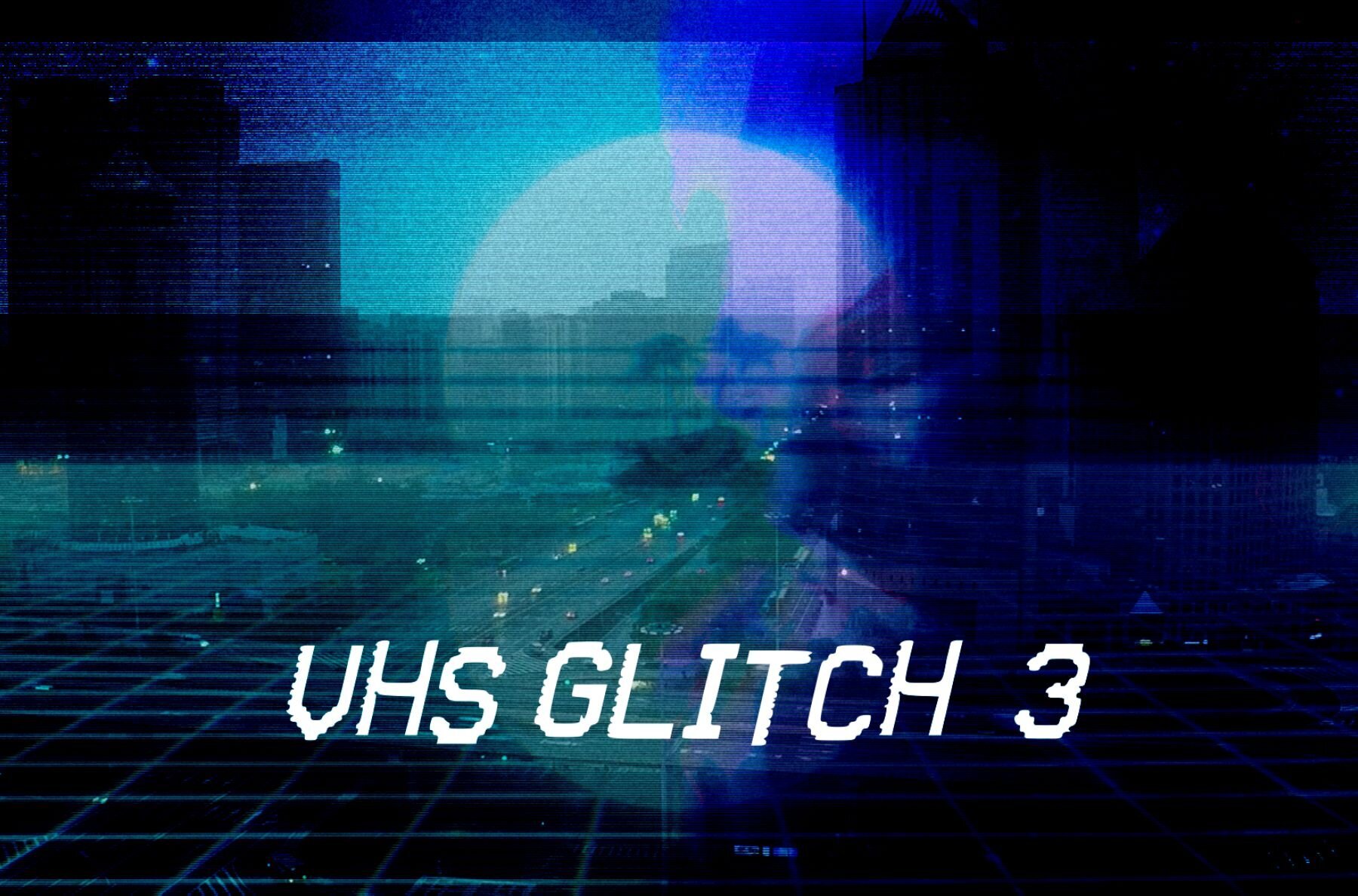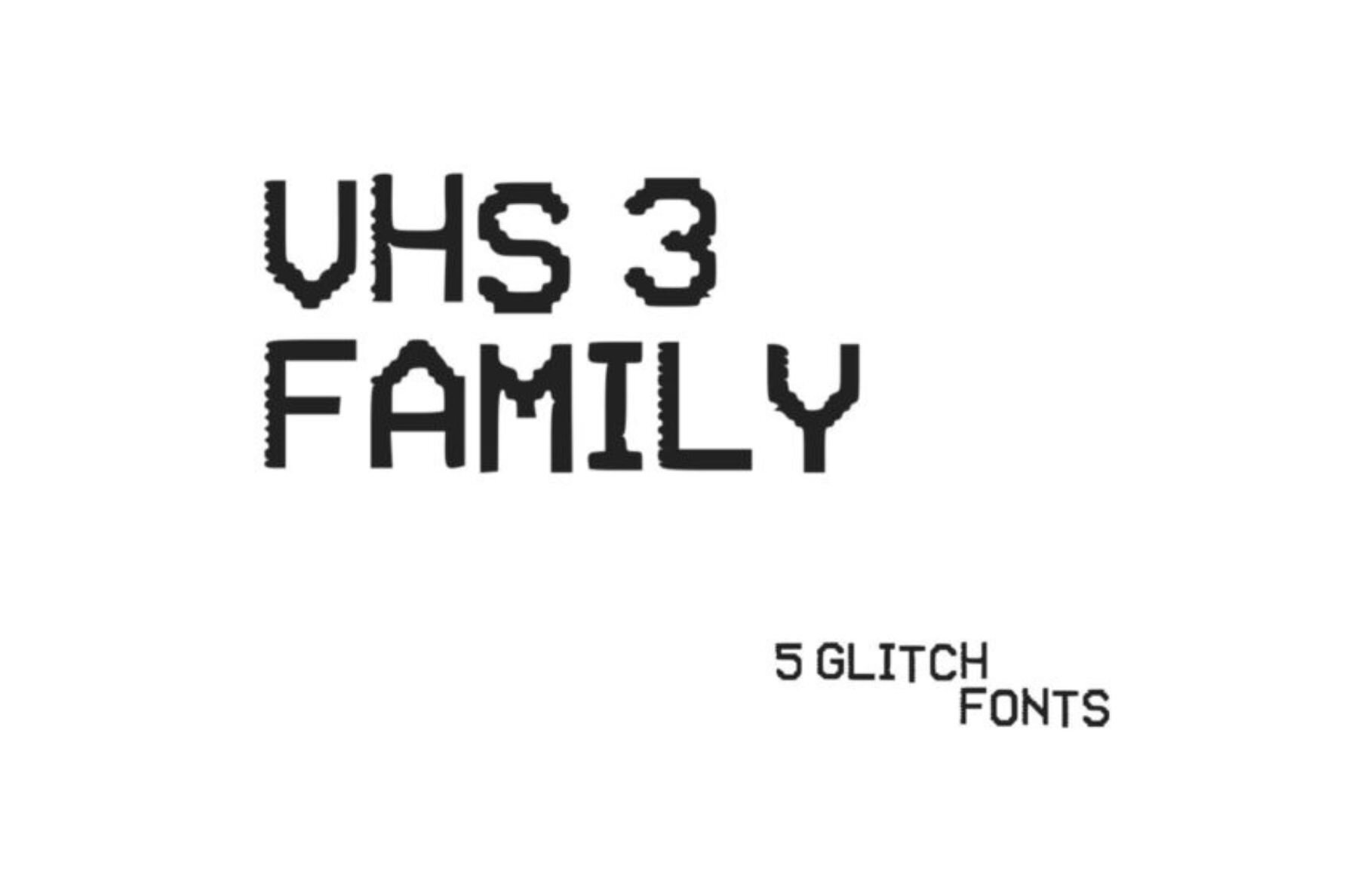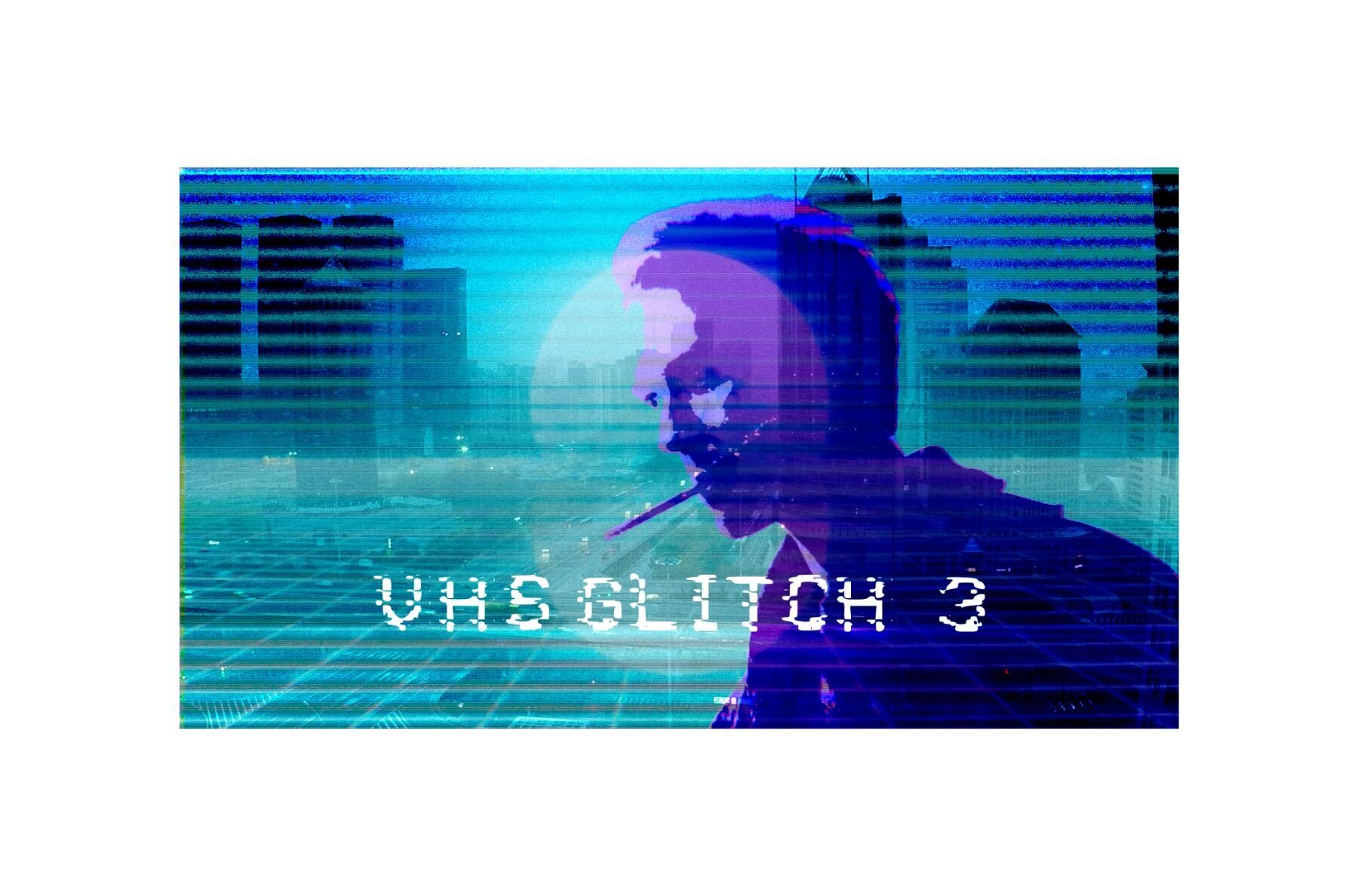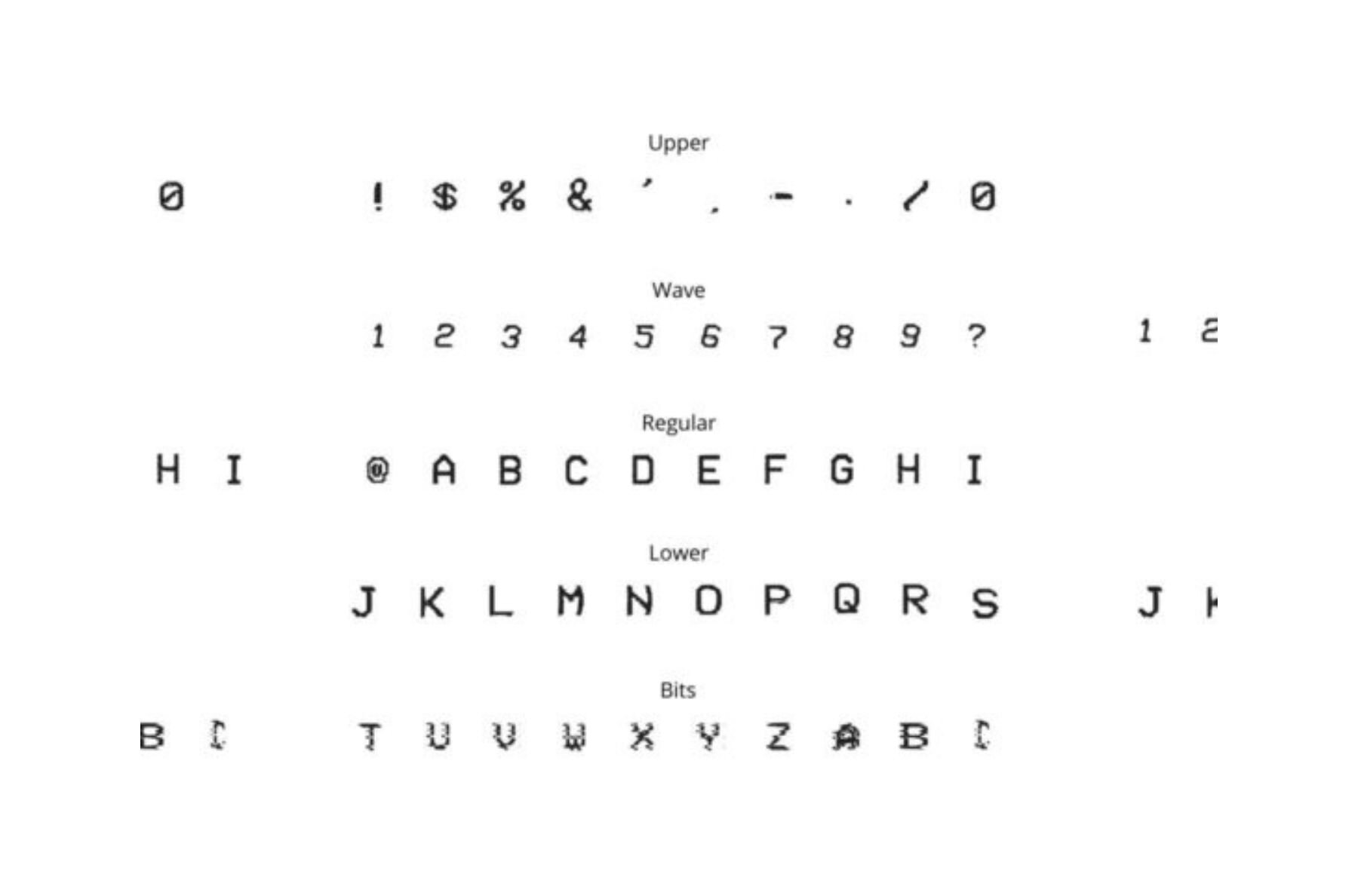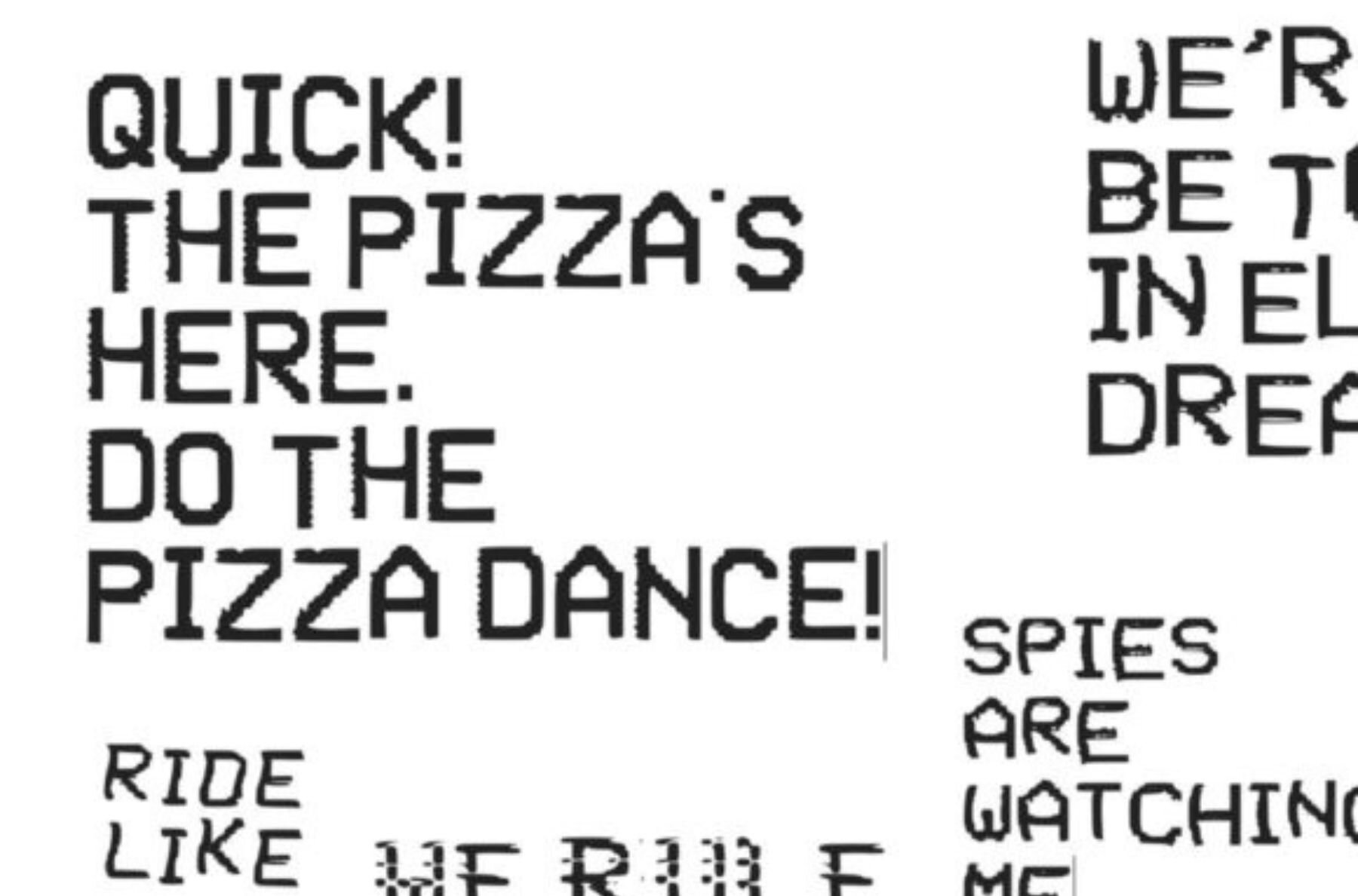
VHS Glitch 3 Font
VHS Glitch 3: The Art of Digital Distortion
Immerse yourself in the avant-garde world of VHS Glitch 3, a continuation of the acclaimed series that celebrates the allure of retro imperfection. This glitch-inspired font family is designed for the creatively bold, featuring five distinct styles that each capture the essence of a bygone era's technological quirks. More than just a typeface, it evokes the familiar static and interruption of a vintage TV screen, making it a favorite among digital artists and designers seeking to infuse their work with an authentic touch of nostalgia.
- Five unique styles: Each style brings its own take on the glitch aesthetic.
- Retro TV bitmap influence: Crafts that perfect bygone tech feel.
- Complete character set: Includes numbers and symbols to broaden your creative scope.
Designed for hackers, digital creators, and glitch art enthusiasts, VHS Glitch 3 is not just another typeface; it’s an invitation to explore the intersections of technology and art. Pair it with the earlier VHS 1 and 2 collections to experience the full spectrum of this cutting-edge style.